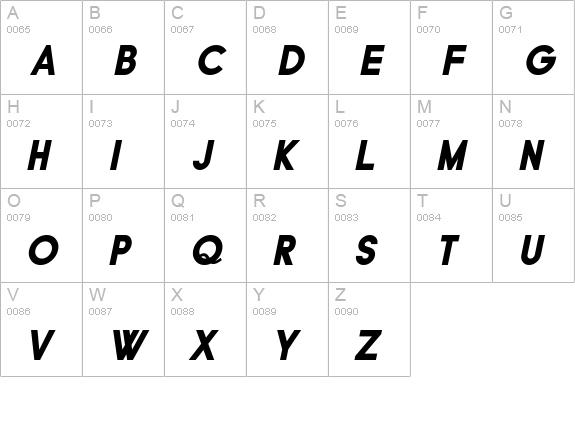
Typo Grotesk Black Italic is a maximum-weight, dramatic, italic variant in the Typo typeface family \xE2\x80\x94 well suited to maximum-impact headlines, posters, and packaging.
Typo Grotesk Black Italic is a stunning and versatile font that exudes boldness and sophistication. With its distinctive and modern appearance, this font is perfect for making a powerful statement in any design project. The sleek, slanted italic style adds a touch of elegance and dynamism to the typography, making it ideal for headlines, titles, and branding materials. Whether it's for print or digital media, Typo Grotesk Black Italic stands out with its strong presence and eye-catching design. One of the best features of this font is that it is available for free! You can easily download Typo Grotesk Black Italic at FontsMarket.com, a reputable platform for high-quality fonts. By offering this font for free, it allows designers and creatives alike to access a premium typeface without any cost, making it a valuable asset in their projects. Typo Grotesk Black Italic is a font that effortlessly combines style and functionality. It is perfect for various design applications such as posters, logos, packaging, and websites. Its versatility allows it to adapt to different design aesthetics, from minimalist to bold and edgy. The clean and crisp letterforms of Typo Grotesk Black Italic provide excellent readability, even in small sizes. This makes it an excellent choice for body text in editorial projects or any design where legibility is key. With its well-designed glyphs and extensive character set, Typo Grotesk Black Italic supports multiple languages, ensuring that your designs can reach a global audience. It is a font that truly caters to the needs of designers, offering both aesthetics and functionality. In conclusion, Typo Grotesk Black Italic is a must-have font for any designer who seeks a powerful and elegant typeface. Its availability as a free download at FontsMarket.com makes it even more accessible and valuable. So, go ahead and unleash your creativity with Typo Grotesk Black Italic, and let your designs make a lasting impression.